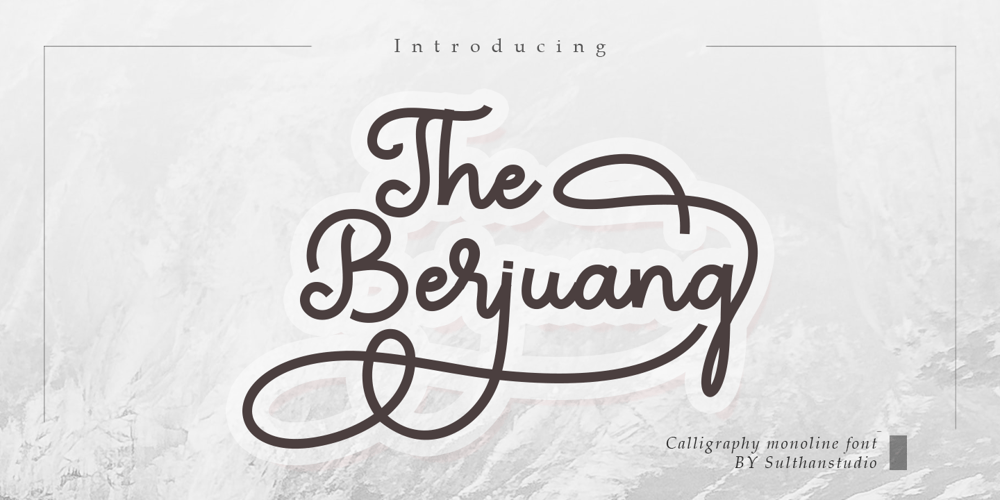
Berjuang Font Family was designed by Nasrullah and published by Sulthan Studio. Berjuang contains 1 styles and family package options. A thick, handwritten monoline calligraphy font made in a beautiful and attractive wayThis font is perfect for stickers, quotes, logos, t-shirt designs, websites, branding, kids designs, blogs, logos, invitations and more!